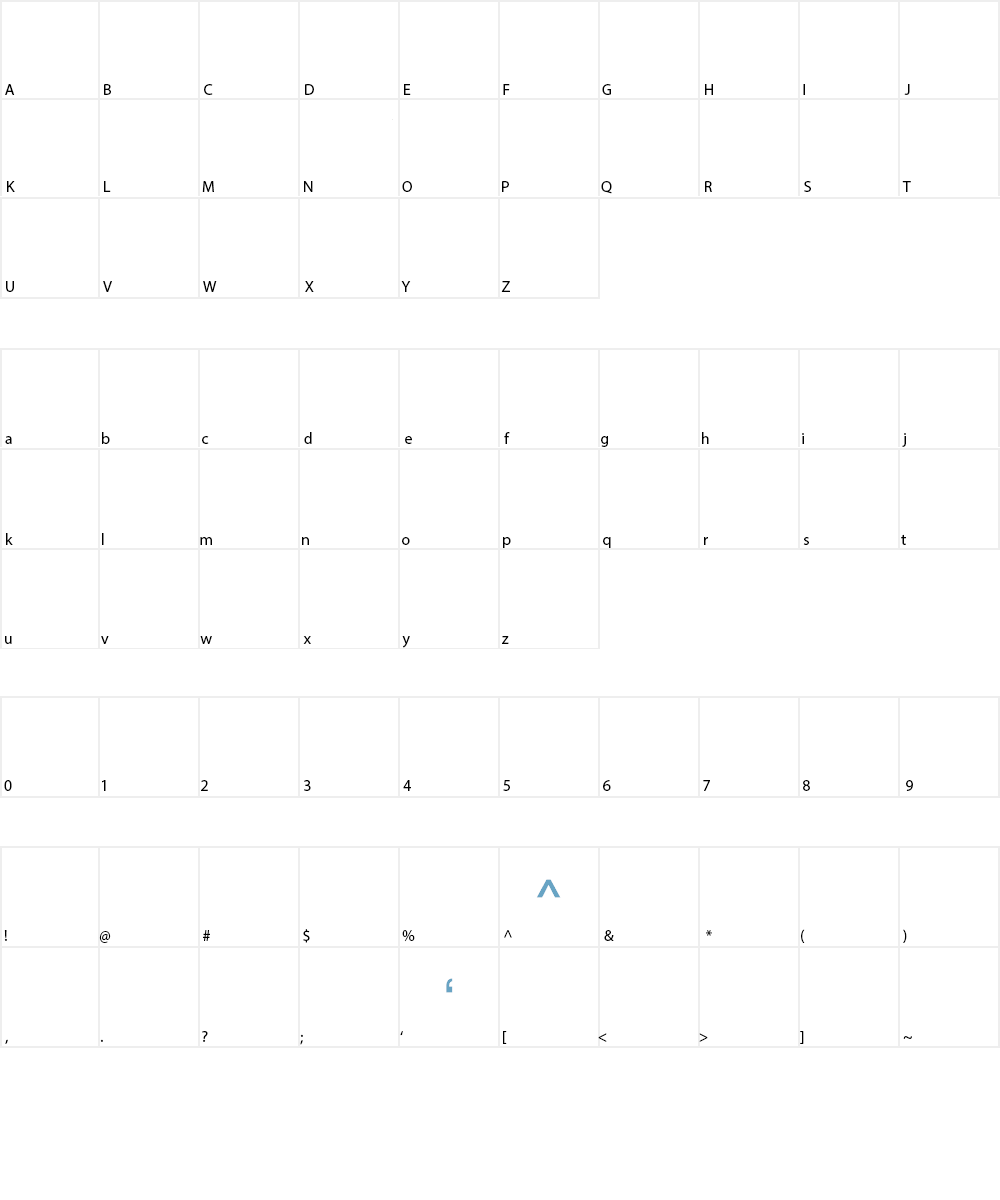
My first attempt at designing a font, Hirakatana is a Roman font designed to resemble Japanese characters. The lower case letters are loosely based off of hiragana, and the capital letters are inspired by katakana. The letter spacing is tight as this font was designed to be used in comics. It is free to use for personal and commercial purposes. Attribution is not needed, but always appreciated.